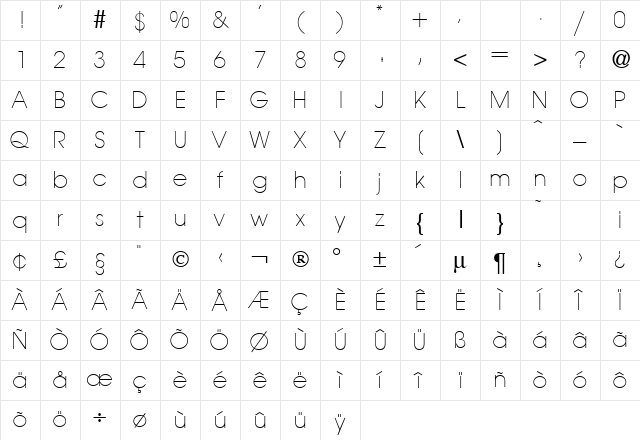
Complete AvantageSmall Normal glyph index. Displaying only characters natively supported by AvantageSmall Normal font.
AvantageSmall is a composed and adaptable typeface that performs quietly and consistently across a wide range of design contexts.